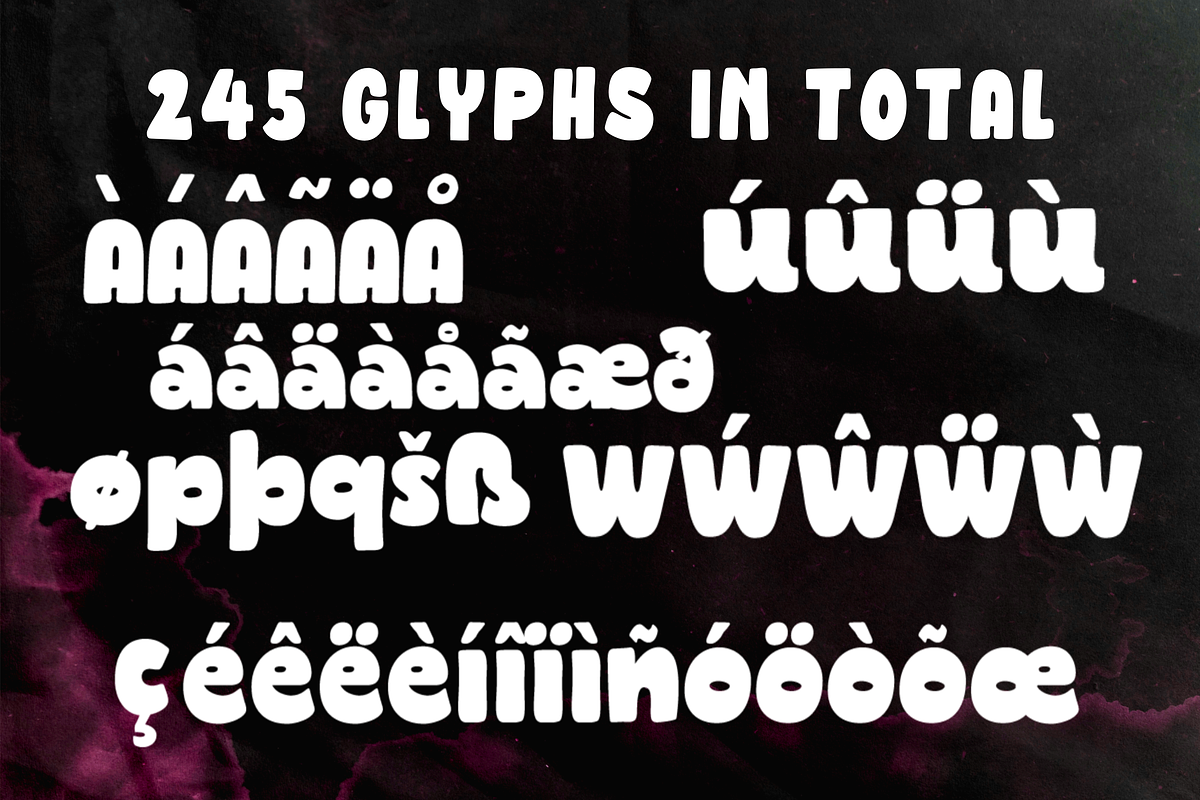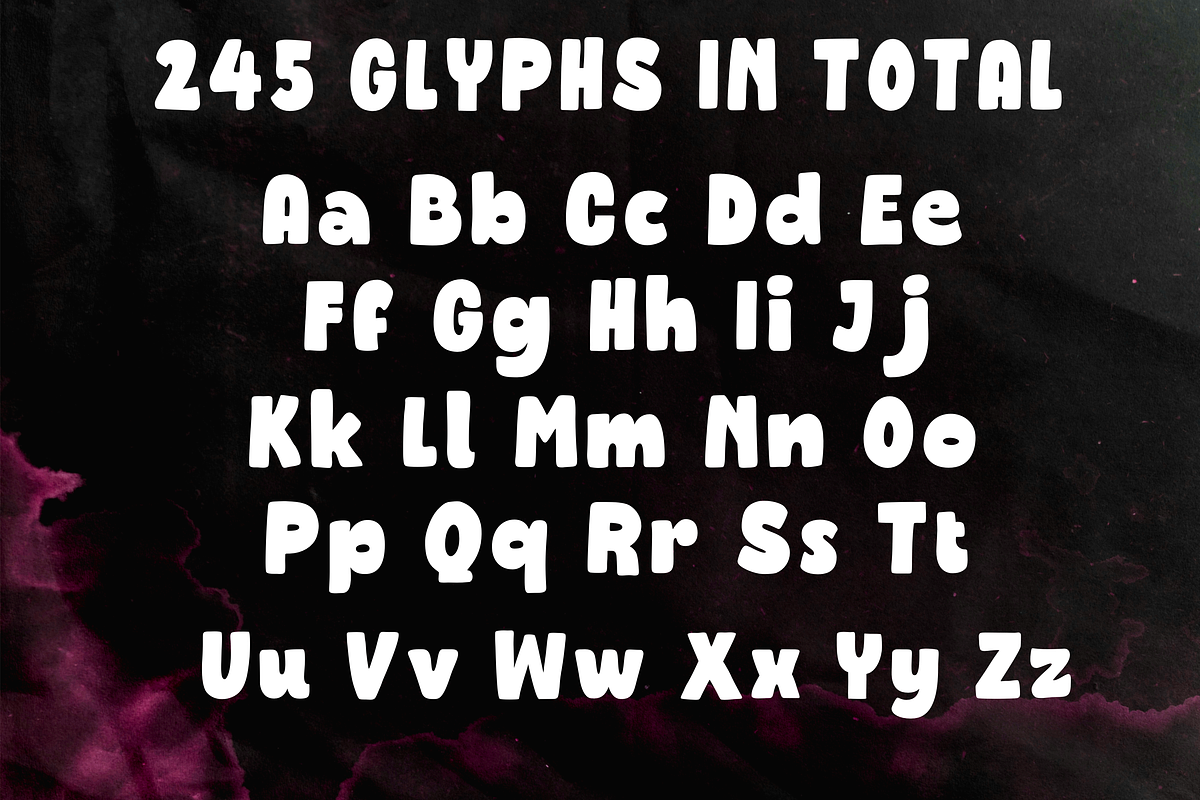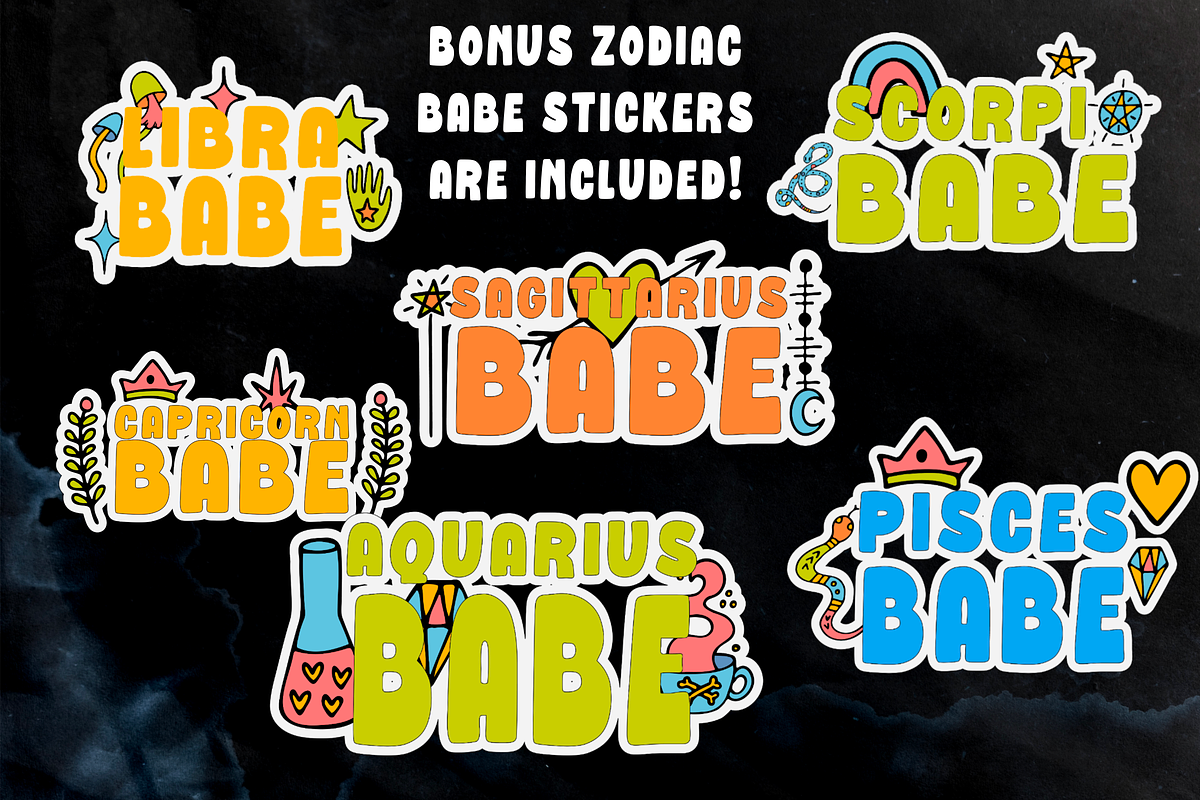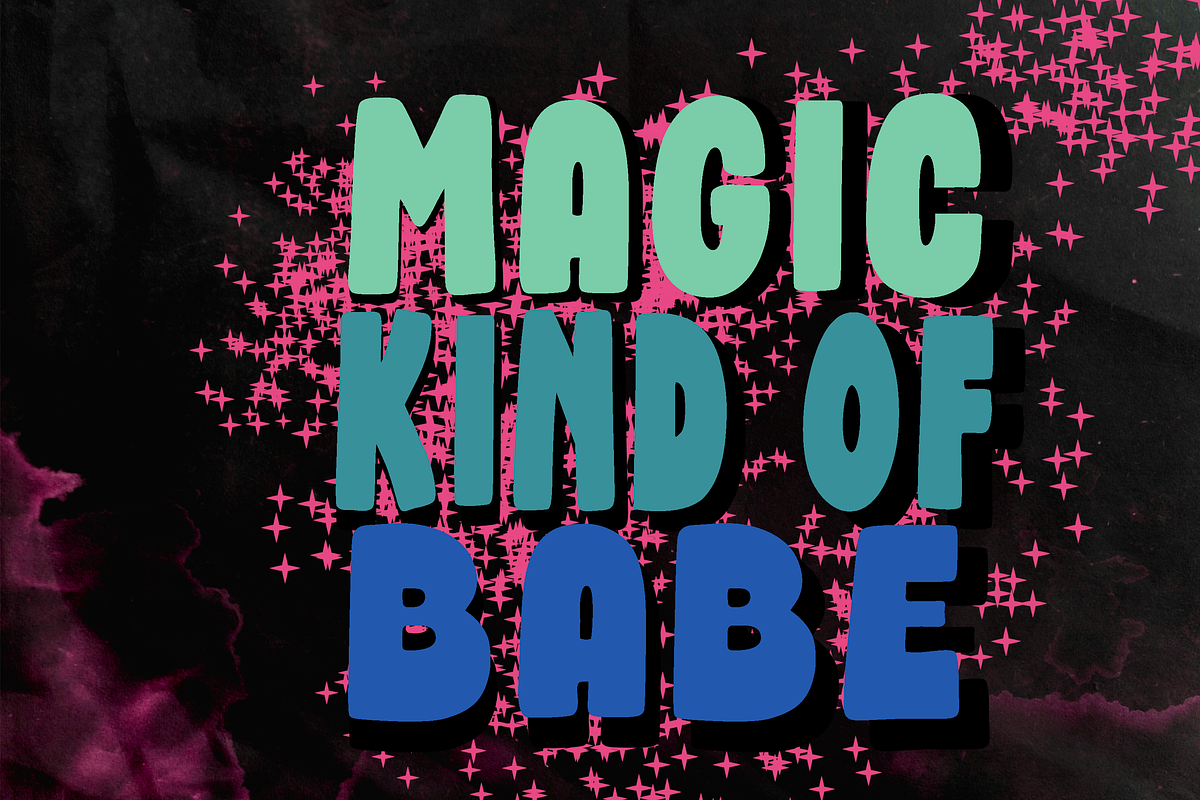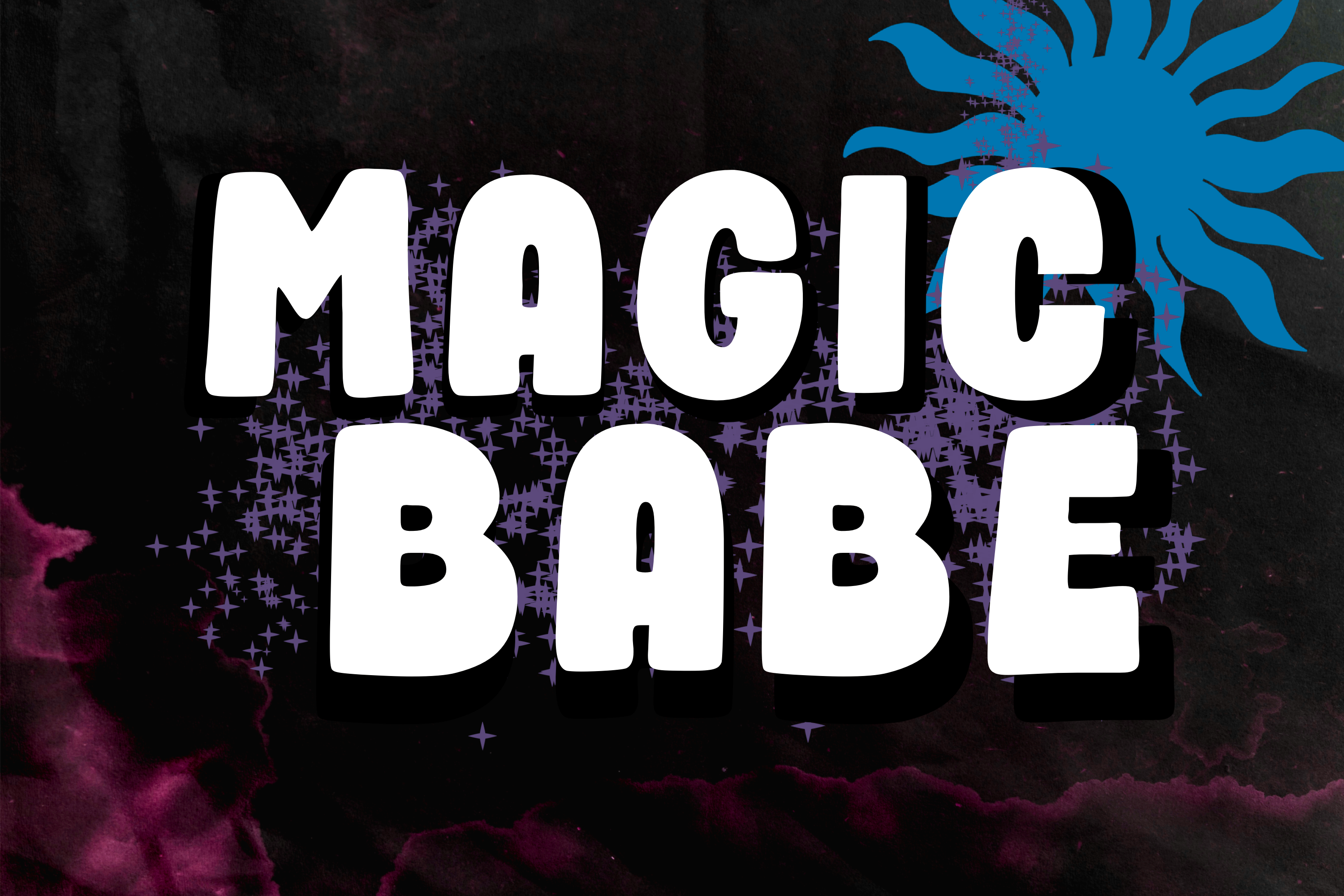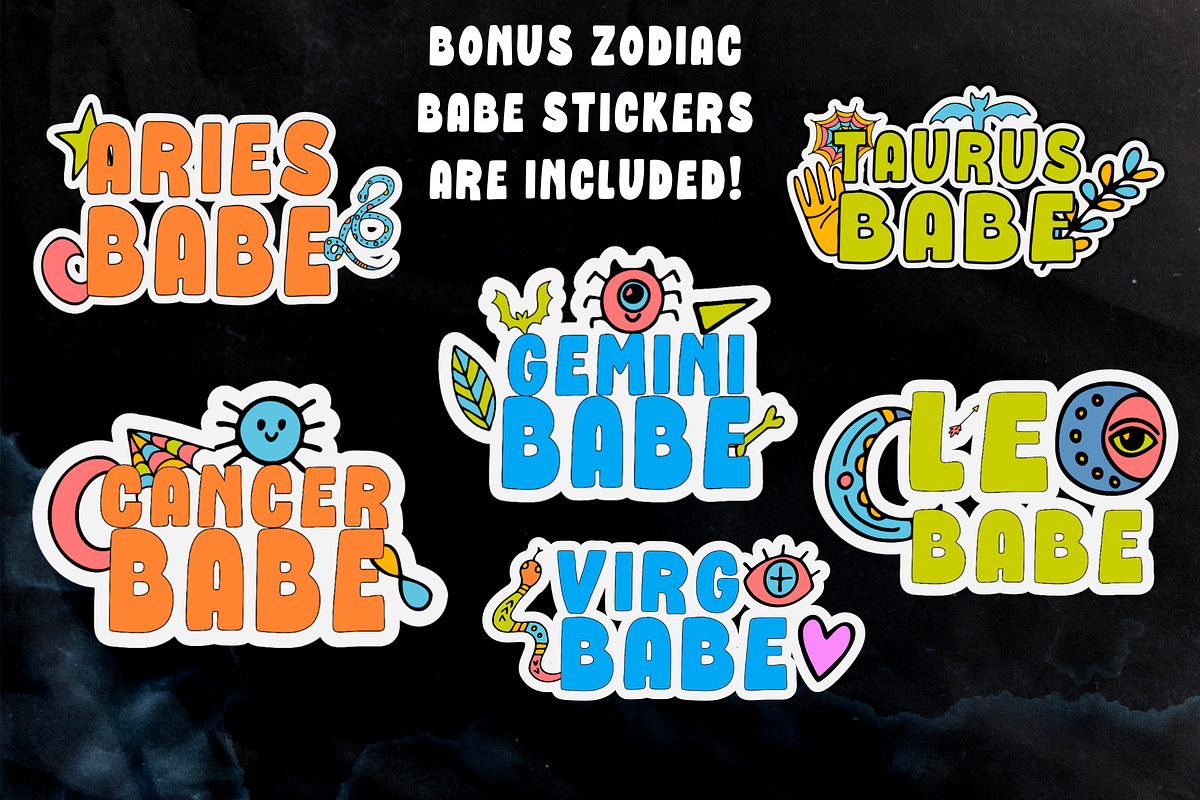
Magic Babe Font & Stickers
Step into the world of enchantment with the Magic Babe Font Block! Handcrafted to perfection, this typeface pulls you into an irresistible charm of whimsy. With an elegant blend of modernity and sophistication, the handwritten quality adds a touch of personal touch that sets your design apart. Available in both .otf and .ttf formats, it offers versatility to cater to your design requirements. This package isn't just about letters. It boasts a unique collection of 12 Zodiac Babe Stickers - a delightful little add-on that augments the captivation of your creations. Magic Babe Font Block - script wonderment in every palpable keystroke.